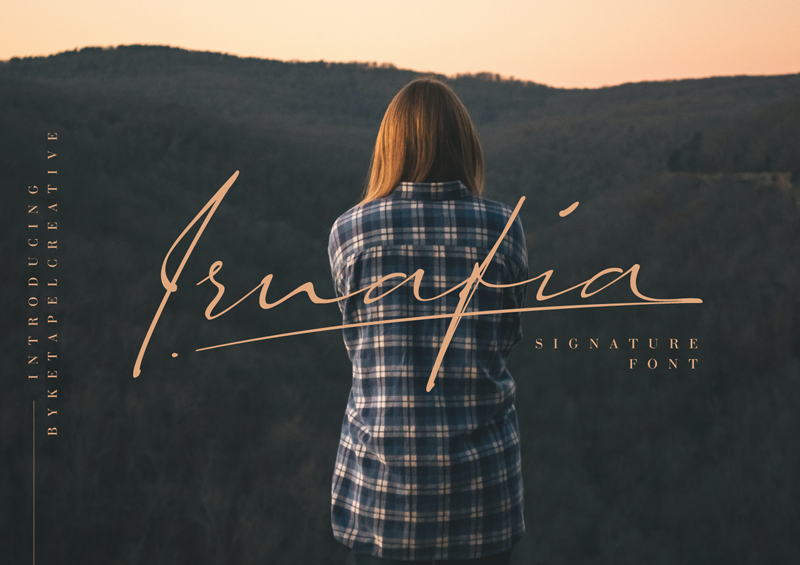
Irnafia is stylish and elegant handwritten signature font. It�s the perfect font for wedding invitations, stationery, photography, social media posts, product packaging, logo designs, greeting cards, and much more! *This font is demo version free for personal use. Please visit https://www.creativefabrica.com/designer/ketapelcreative/ref/237095 to purchase commercial license and more other products. download & enjoy !! *Contact me : ketapelcreative@gmail.com Thanks for downloading this fonts. Best Regards |